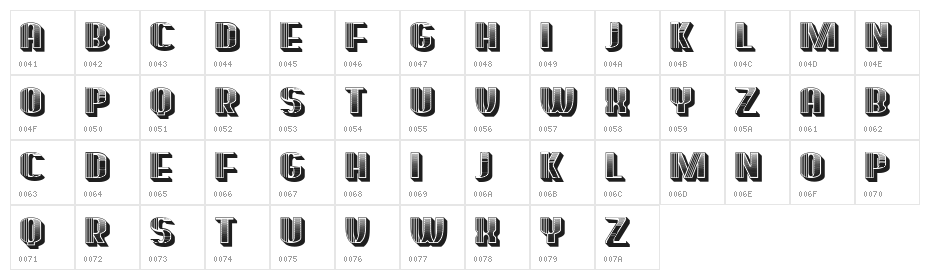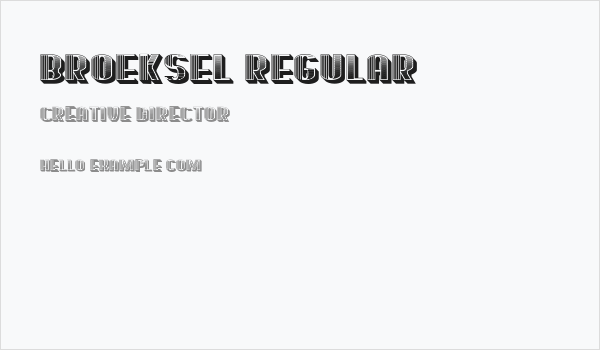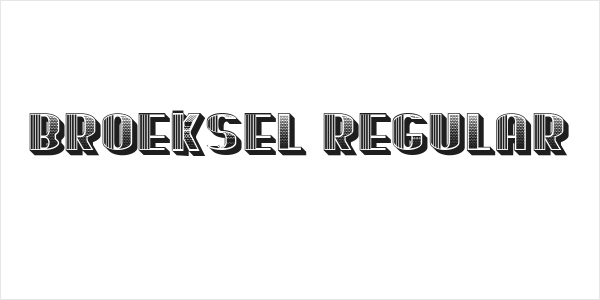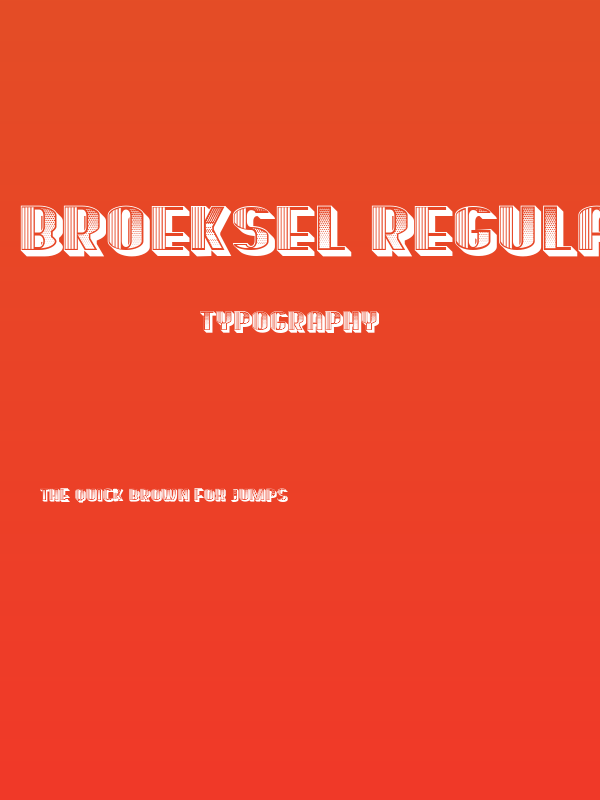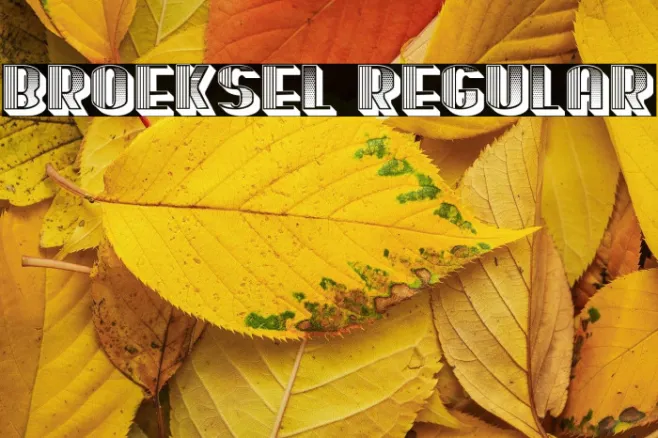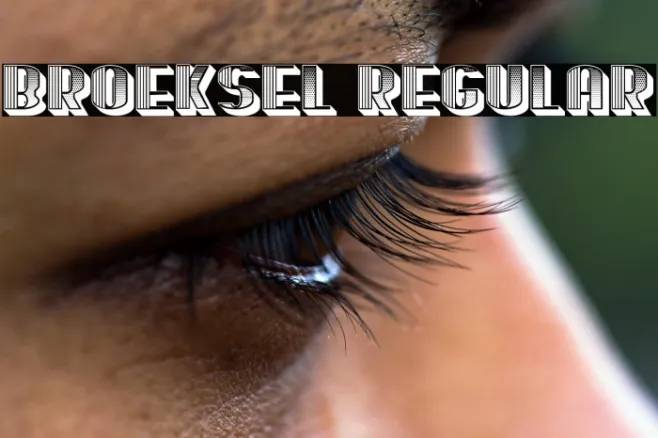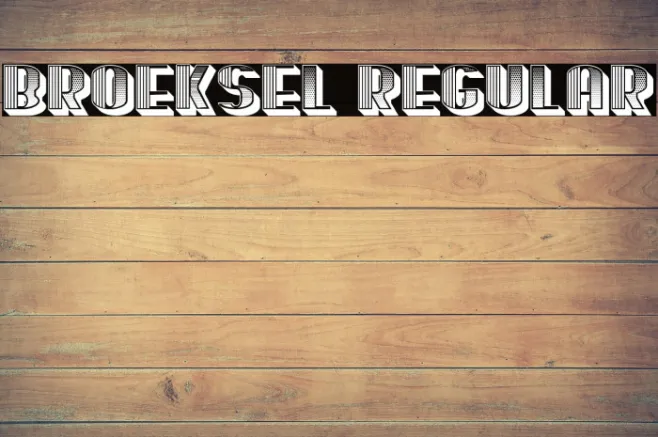
Broeksel Regular Font
Broeksel Regular Description
This font features a bold, decorative style with a three-dimensional effect created by its shadowed and striped design. The uppercase letters are characterized by thick strokes and a distinct shadow that gives a sense of depth and dimension. The striped pattern within each letter adds a unique texture, making it stand out as a display font. The overall appearance is striking and eye-catching, suitable for making a strong visual impact.
| Proposed Projects | Ideal for posters, headlines, logos, and any design requiring a bold statement. |